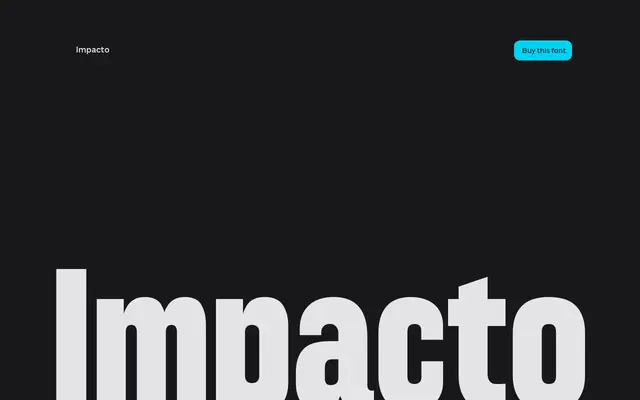
Impacto
A grid-based geometric display typeface built on sports poster and stadium signage references, available as a variable font across six widths from Extra Condensed to Wide.
Designed by Mateusz Machalski at Capitalics, it draws on the visual language of 20th century sports posters, jersey numbers and historical event affiches. The letterforms are constructed on a rigorous modular grid that gives the family a rhythmic, compact quality suited to identity, information systems and large-scale print or digital work. A variable font is included with the family, allowing continuous control over width and expression across all six named widths.
A grid-based geometric display typeface drawing on sports poster aesthetics and jersey numerals, designed for high-impact use at large scale across condensed to wide widths.